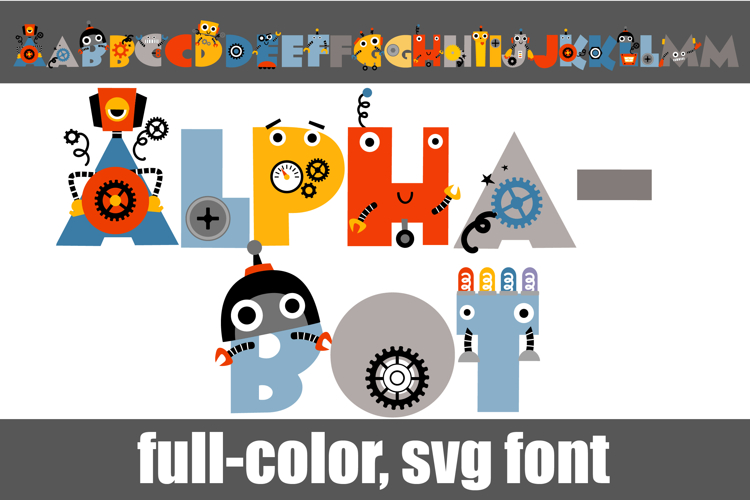
Alphabot Color Font
This full-color font features letters that look like robots. There is an alt case of each letter with a different color combination.